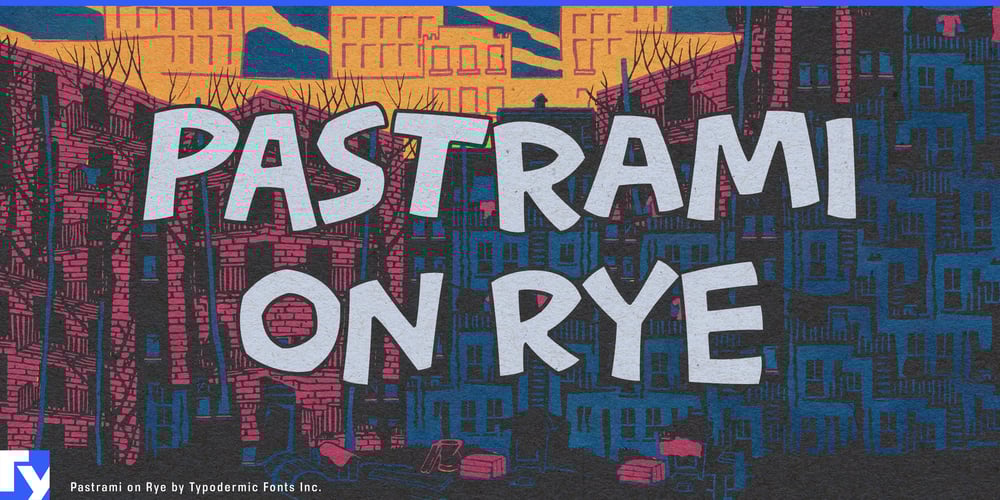
Pastrami on Rye Font Family was designed by Ray Larabie and published by Typodermic. Pastrami on Rye contains 1 styles and family package options. Ladies and gentlemen, gather ‘round for the typographic sensation that’s taking the design world by storm—or should we say, by sandwich? Introducing Pastrami on Rye, the font that’s so deliciously different, it’ll make your taste buds tingle and your eyeballs dance!This isn’t your grandma’s comic font, folks. Oh no, Pastrami on Rye is the rebellious teenager of the type family, constructed not with boring old pen and ink, but with the raw, unbridled energy of cut paper and fabric. It’s like someone took a deli menu, a pair of scissors, and a fever dream, then tossed them in a blender set to “REND ASUNDER.” But wait, there’s more! Feast your eyes on the capital “I”—it’s got serifs! That’s right, this lone letter is putting on airs like it’s at a fancy typography tea party. Use it for personal pronouns, and suddenly “I” becomes the typographic equivalent of wearing a monocle to a monster truck rally.And just when you thought it couldn’t get any wilder, Pastrami on Rye pulls an ace from its sleeve—or should we say, a pickle from its stack? With OpenType savvy applications, this font shuffles letters and numerals faster than a Vegas card shark. Your text will look so naturally hand-drawn, people will think you’ve got a team of caffeinated cartoonists locked in your basement! Worried about language support? Fuhgeddaboudit! Pastrami on Rye speaks more languages than a United Nations interpreter after a triple espresso. From Afrikaans to Zulu, this font’s linguistic menu is longer than the line at Katz’s Deli on a Saturday night.So why settle for some plain white bread font when you can have the zesty, tangy, slightly madcap flavor of Pastrami on Rye? It’s perfect for logos that need to loosen their ties, comic books that want to break the fourth wall (and maybe the fifth and sixth while they’re at it), or marketing campaigns that aren’t afraid to put the “fun” in “fundamental restructuring of brand identity.” Remember, in the deli counter of life, other fonts might be the pickle on the side, but Pastrami on Rye? It’s the whole dang sandwich, baby!